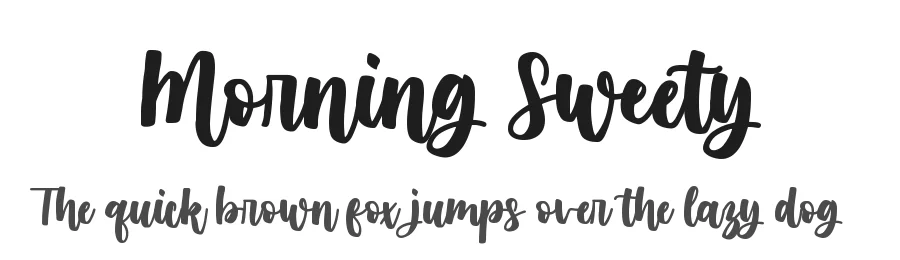
About Alex Dirte Font
Introducing our latest brush font. this brush font is different from the previous one, alexdirte has a striking dirty texture on each letters. this font looks cool using uppercase and lowercase letters.
| Designer | Debut Studio |
Alex Dirte Font is a script font that shines as a display or heading face. Pair it with a clean sans-serif or serif font for body text β the contrast creates a clear hierarchy while the two styles stay balanced and easy to read.
Alex Dirte Font
by Debut Studio